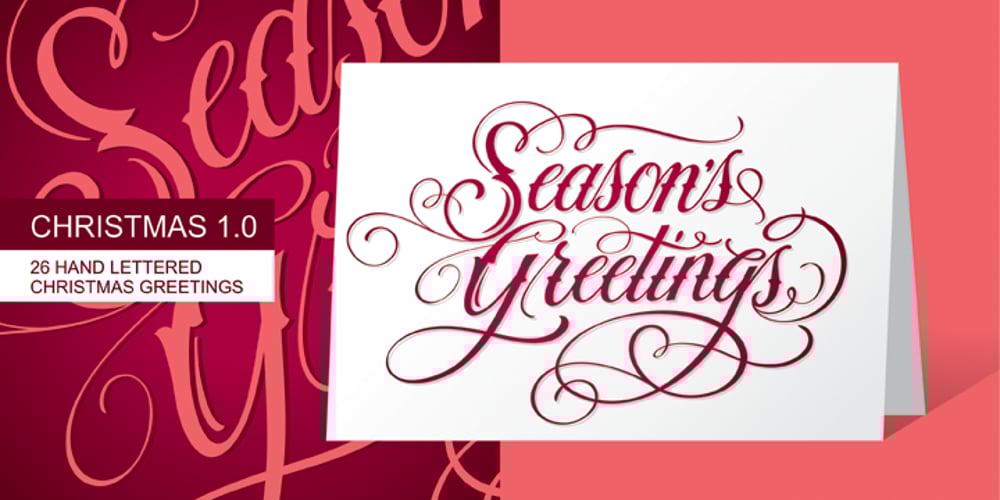
FM Christmas 1.0 Font Family was designed by Jordan Jelev and published by The Fontmaker. FM Christmas 1.0 contains 1 styles and family package options. FM Christmas 1.0 consists of 26 hand-lettered Christmas greetings. All the words and phrases are original and handwritten – a high quality calligraphy for your holiday projects. Check our portfolio for the rest of our Christmas collection and more holiday related hand-lettered fonts.